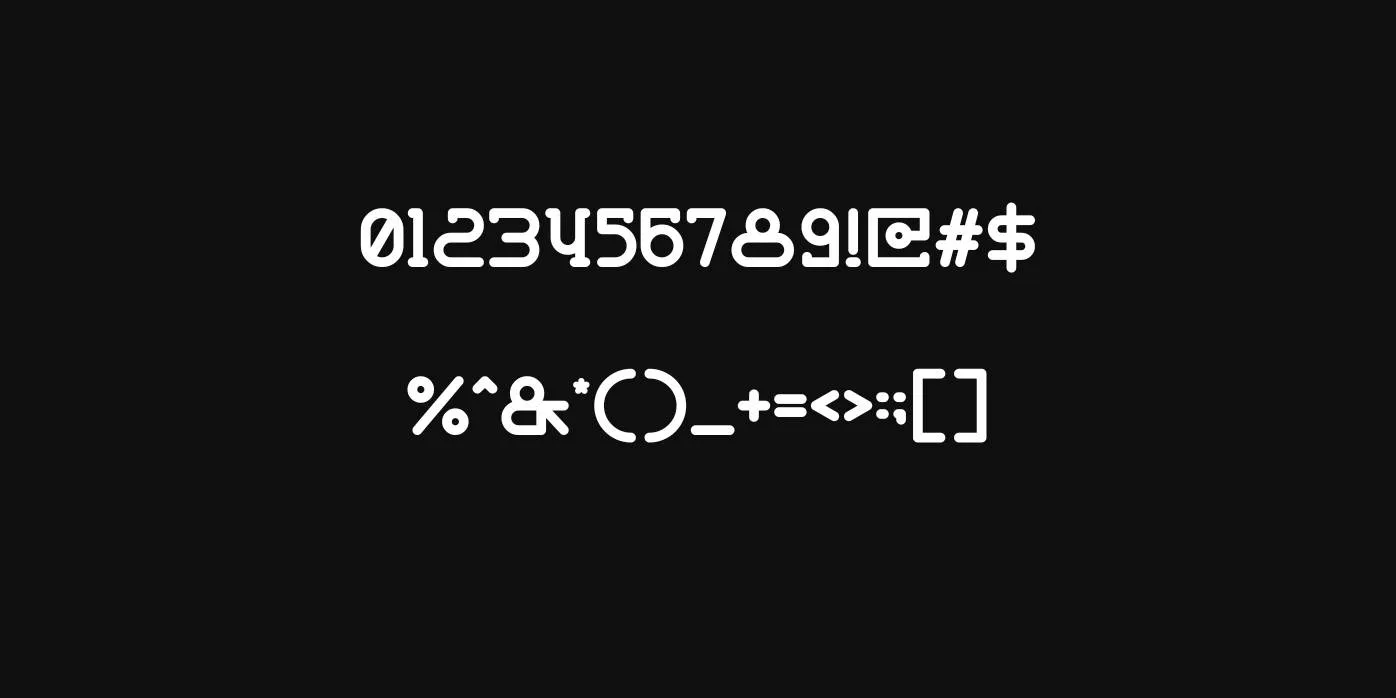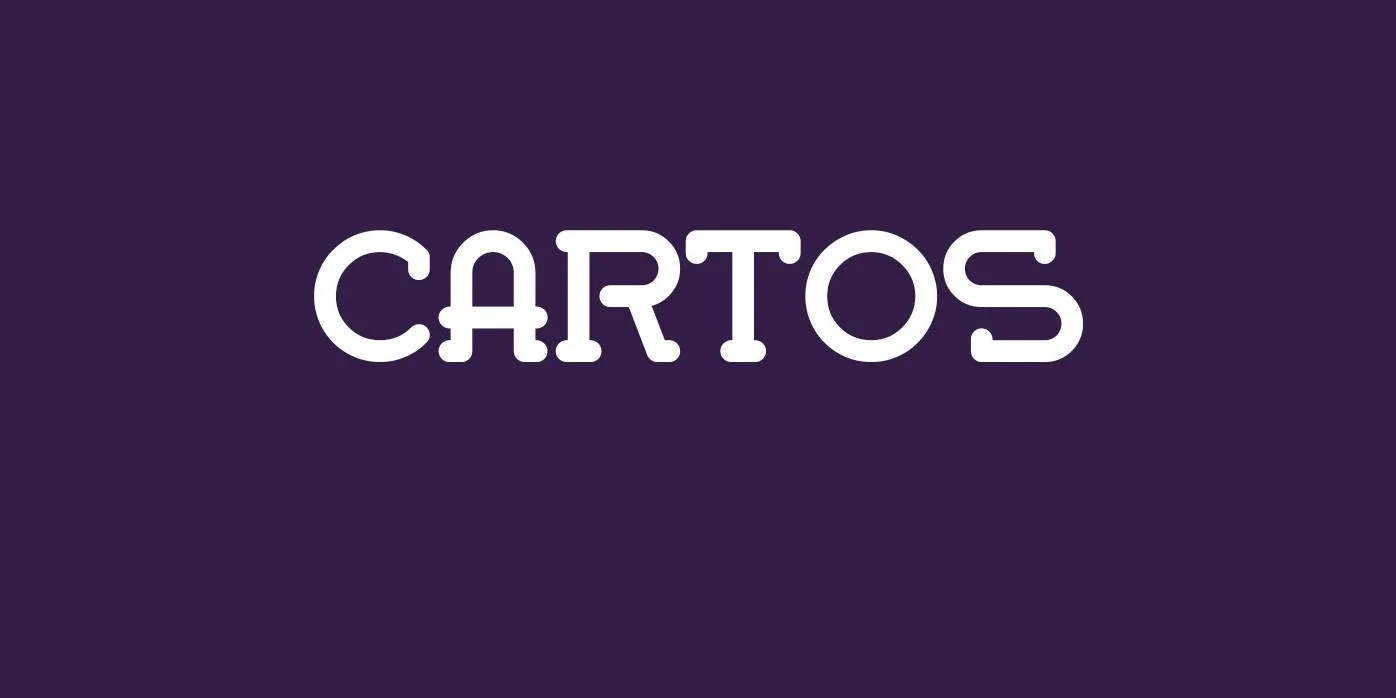
Cartos Font
Cartos Font is an amazing font that was designed by Sahirul and manufactured by Tokokoo Studios. It has an all-caps look which makes it very strong and attractive for all projects. It has many different features it contains 194 characters, 157 glyphs, and 1000 units per Em. The weight of the font is Semi-Light and its width is expanded.
You can also pair it with other fonts like the carlton logo font to give a more attractive look to your projects. It is the best font for making modern cartoons for kids and other projects as well. Usage It can be used to design many different projects It has many features like characters, symbols, numbers, capital letters, punctuations, and special characters. Its rounded look with geometric shape makes it perfect for making so many attractive projects.
You can use this font for making cartoons which takes the children into the fantasy world. This font is a suitable choice for making both print and digital media. You can use it in making movie posters, titles, logos, and TV show titles. In all types of games related to space, technology, and science you can also use this typeface.
What type of Cartos Font is? This is a very attractive font for making cartoons. It has a unique texture and can be used to design different projects like posters, movie titles, game logos, and much more.